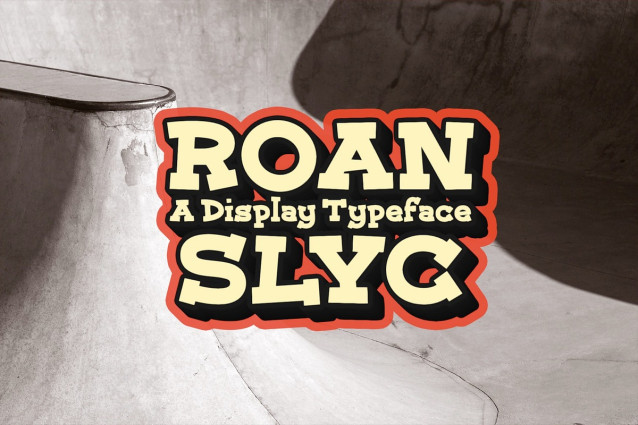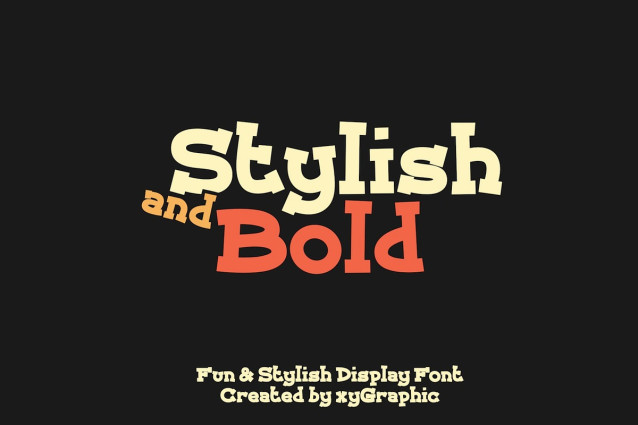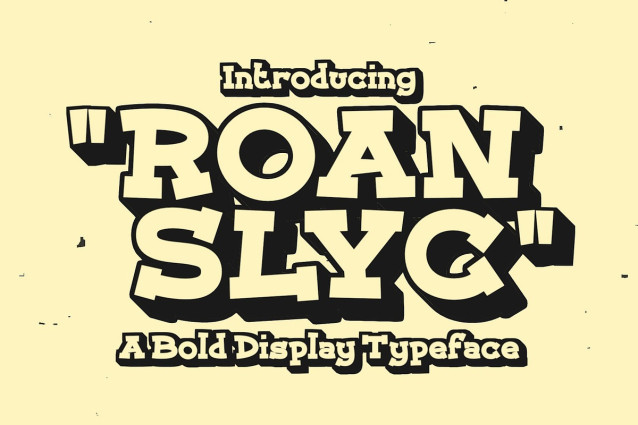
Roan Slyc – Slab Serif Typeface Font
Roan Slyc is a bold retro display font with chunky, blocky letterforms and a distinct vintage cartoon aesthetic. Its heavy proportions, sharp angular corners, and thick slab-like serifs give it a playful yet high-impact presence that feels hand-drawn and full of character.
Best suited to skate apparel, streetwear branding, event posters, comic book titles, and food packaging. Use it for eye-catching headlines, stickers, and social media graphics where a fun, nostalgic, and energetic tone is needed.
Use it for posters · logos · headlines · apparel · packaging · branding